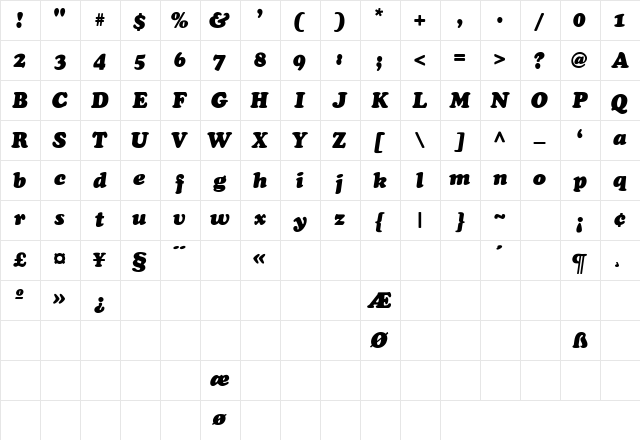
Cooper SSi Extra Black Italic
Design Context for Cooper SSi Typeface
Cooper SSi is a composed and adaptable typeface that performs quietly and consistently across a wide range of design contexts. The dynamic lean of this cut emphasises speed and emphasis in any layout.